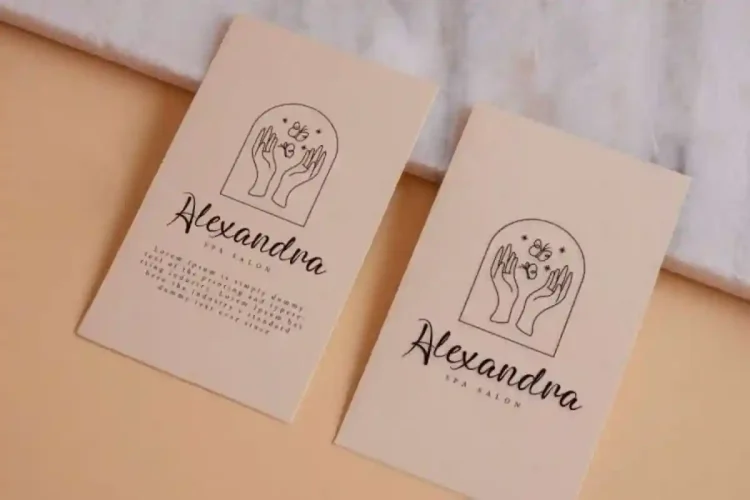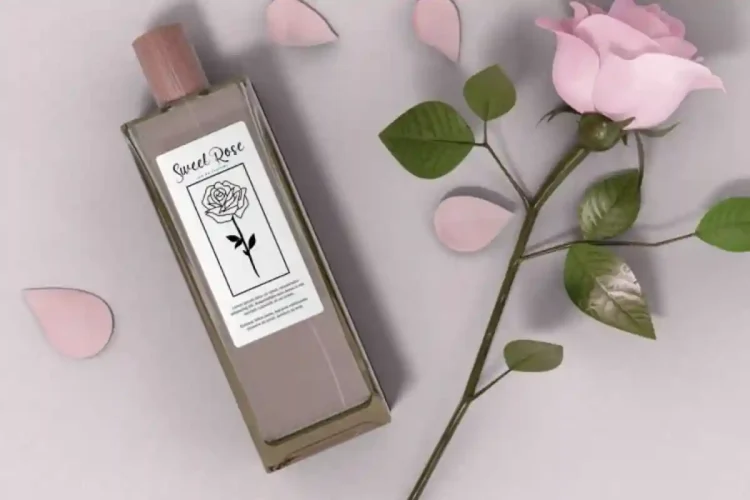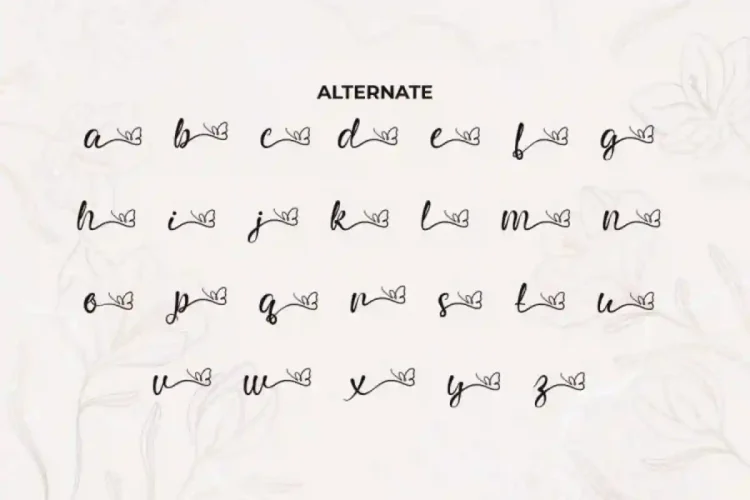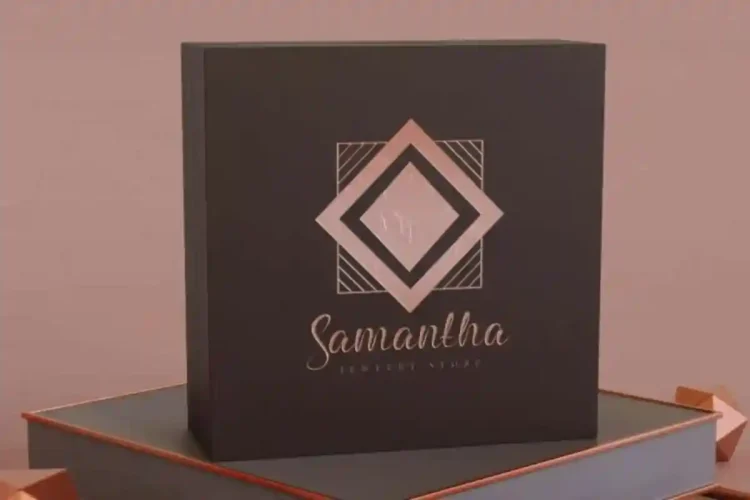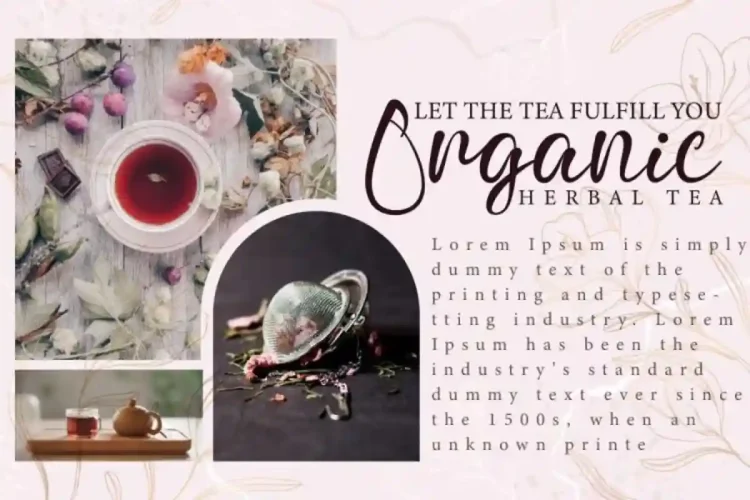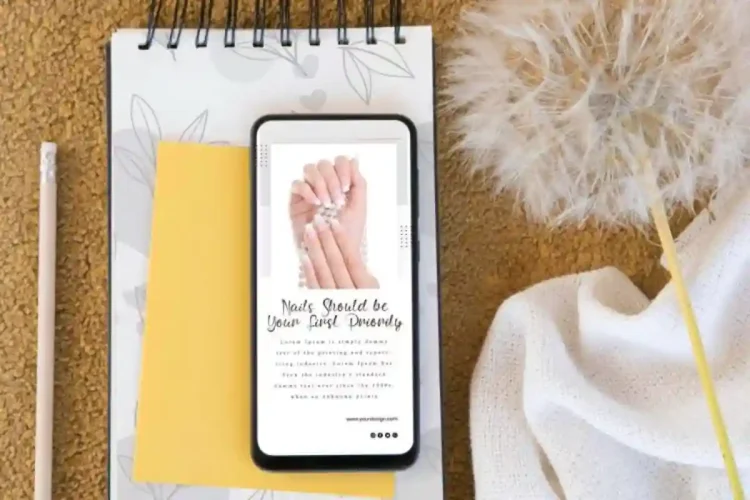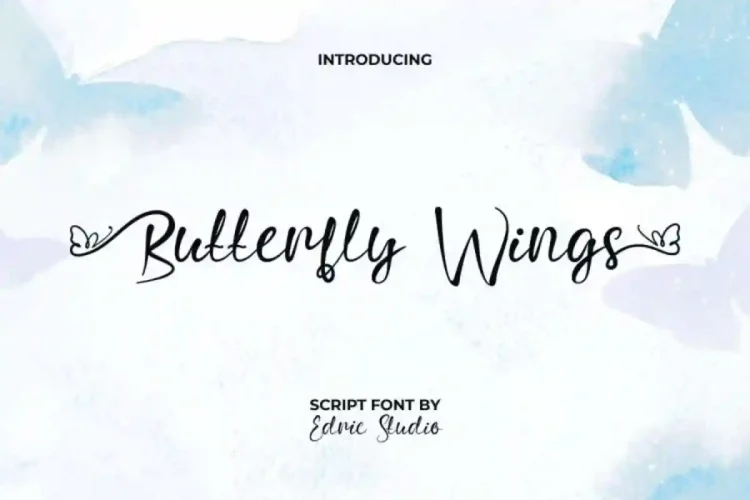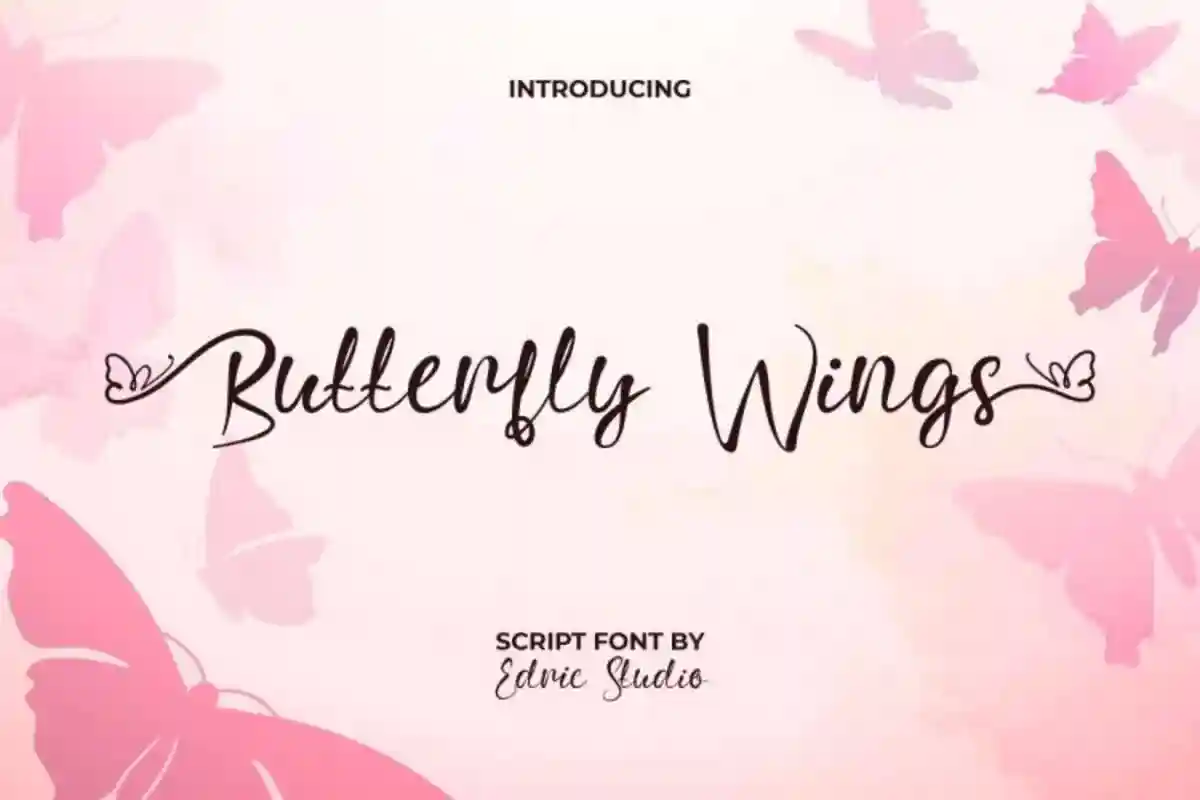
Butterfly Wings Script Font is an elegant script font that radiates beauty created by EdricStudio. Butterfly Wings Font is your ultimate choice. Its versatile style fits seamlessly into logos, labels, invitations, product packaging, social media posts, websites, and more.
Butterfly Wings Script Font comes with a full set of Uppercase and Lowercase Basic Characters, Number, a large range of Punctuation and Symbol. It has a stunning characters set, perfectly managed with well spaced and kerning. Butterfly Wings Script Font will be great for any projects (with extended license) including : brand logo, business card, label, product packaging, quote, sticker, title, watermark, website, etc.